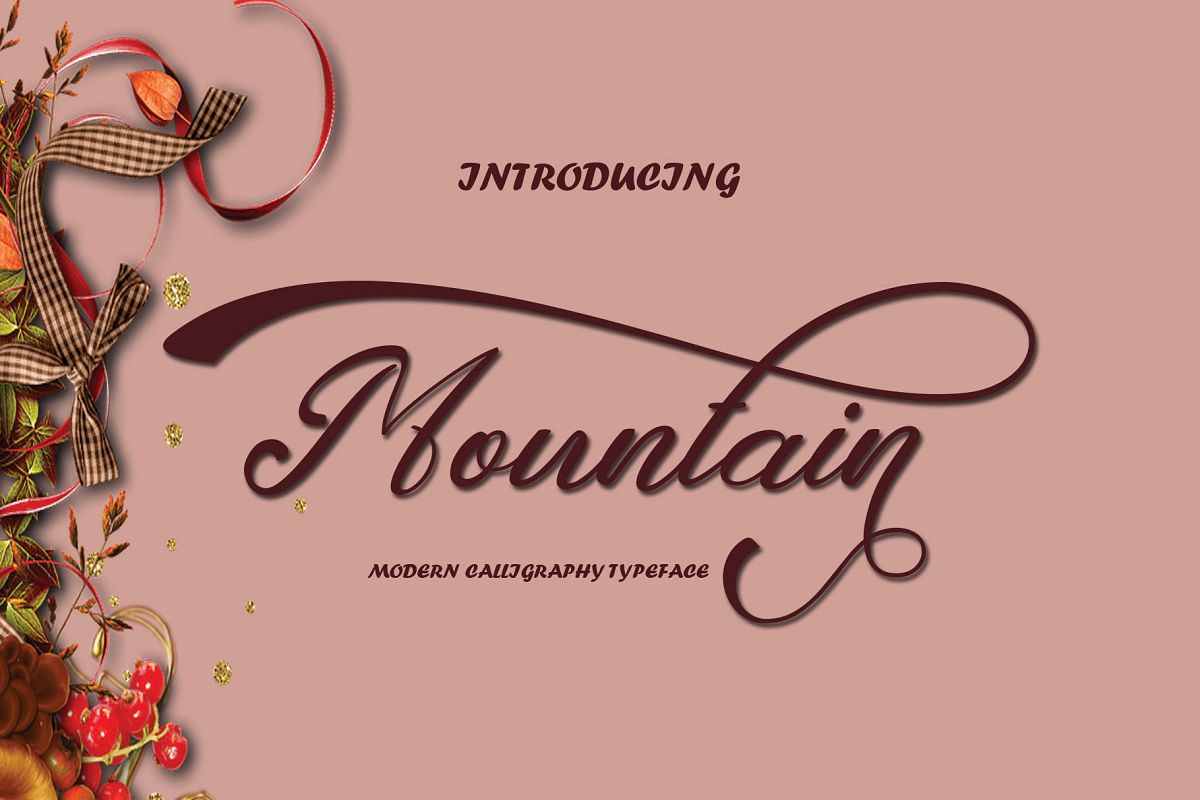
Mountain Script
Mountain-Regular
If you want to add an elegant touch to your current project, then don't miss this one, namely Mountain Script. You will get an amazing collection of modern script fonts, each featuring many OpenType features and many languages. Beautiful, modern, and made by hand.
The Mountain Script: is a modern calligraphy font. Its beautiful swashes give it an elegant touch and it's fine lines make it perfect for adding an upscale and chic look. It can be used for signatures, logos, correspondences, wedding invitations, letterheads, signage, labels, newsletters, posters, badges, branding, greeting card, and much more!